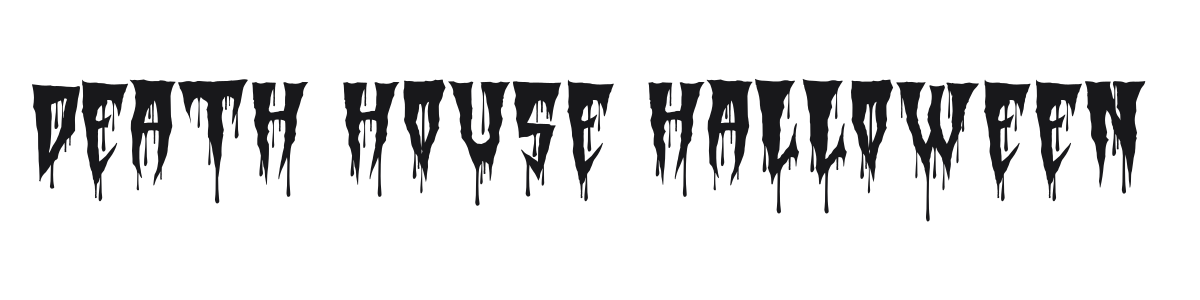
Death House Halloween
Death House Halloween is a heavy horror display font built around a dripping blood effect that trails from every character. The letters combine angular blackletter-style construction with thick, irregular strokes and sharp points, making the horror theme impossible to miss. It works at large sizes for posters, event flyers, band logos, and anything that needs an unambiguous Halloween or horror atmosphere.